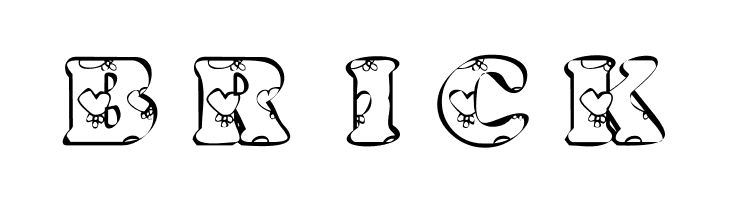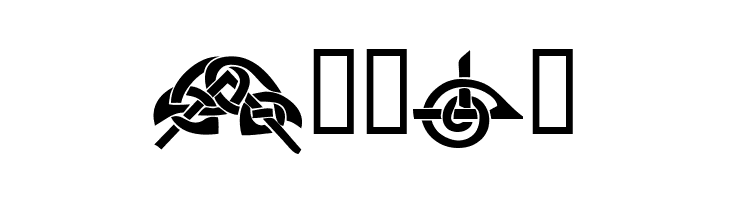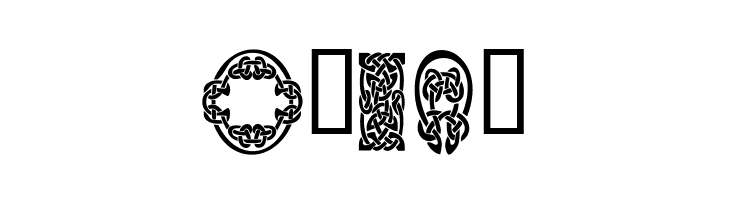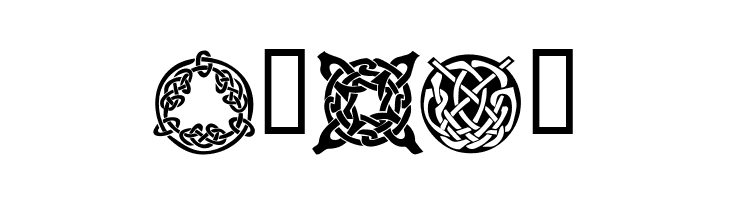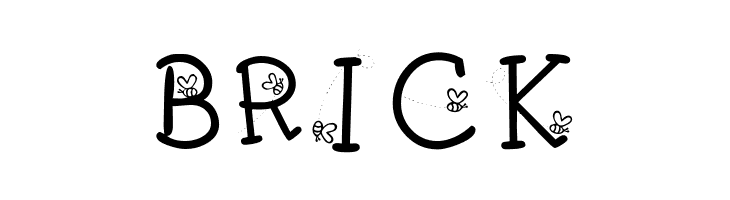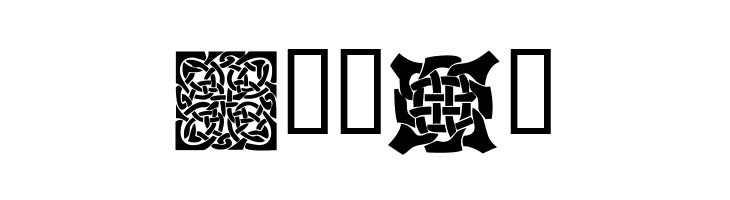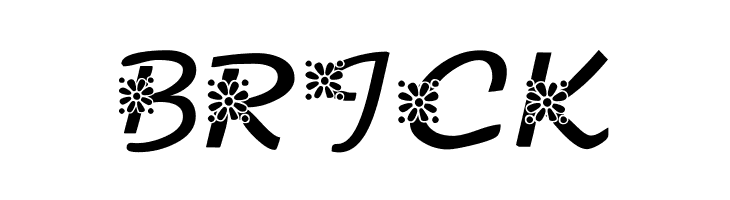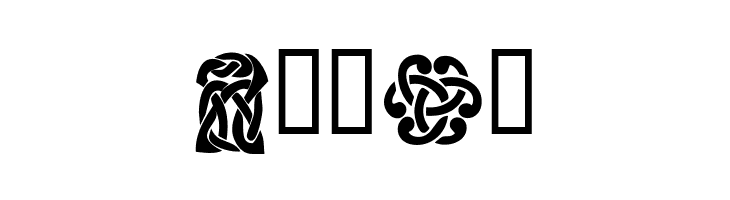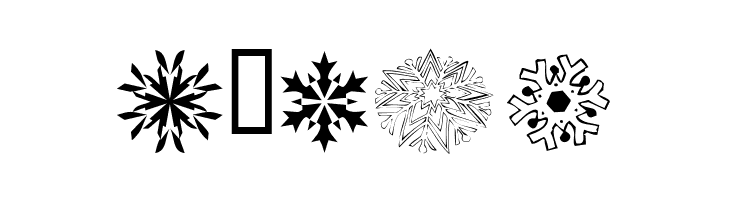
• KR Floral Script
A decorative script font with integrated floral patterns for a whimsical and elegant look.
• KR Heartfilled
A decorative font with heart-filled characters, perfect for romantic and playful designs.
• KR Heartfilled
• KR Keltic Five
Intricate Celtic knot designs form each character, offering a decorative and historical aesthetic.
• KR Keltic Four
A decorative font with intricate Celtic knot designs.
• KR Keltic Six
A decorative font with intricate Celtic knot designs for each character.
• KR Keltic Three
A decorative font with intricate Celtic knot designs in each character.
• KR Keltic Two
A decorative font featuring intricate Celtic knot designs.
• KR Kinda Flakey
A display font featuring diverse snowflake icons.
• KR Little Buzz
A playful font with bee illustrations integrated into each character, perfect for fun and engaging projects.